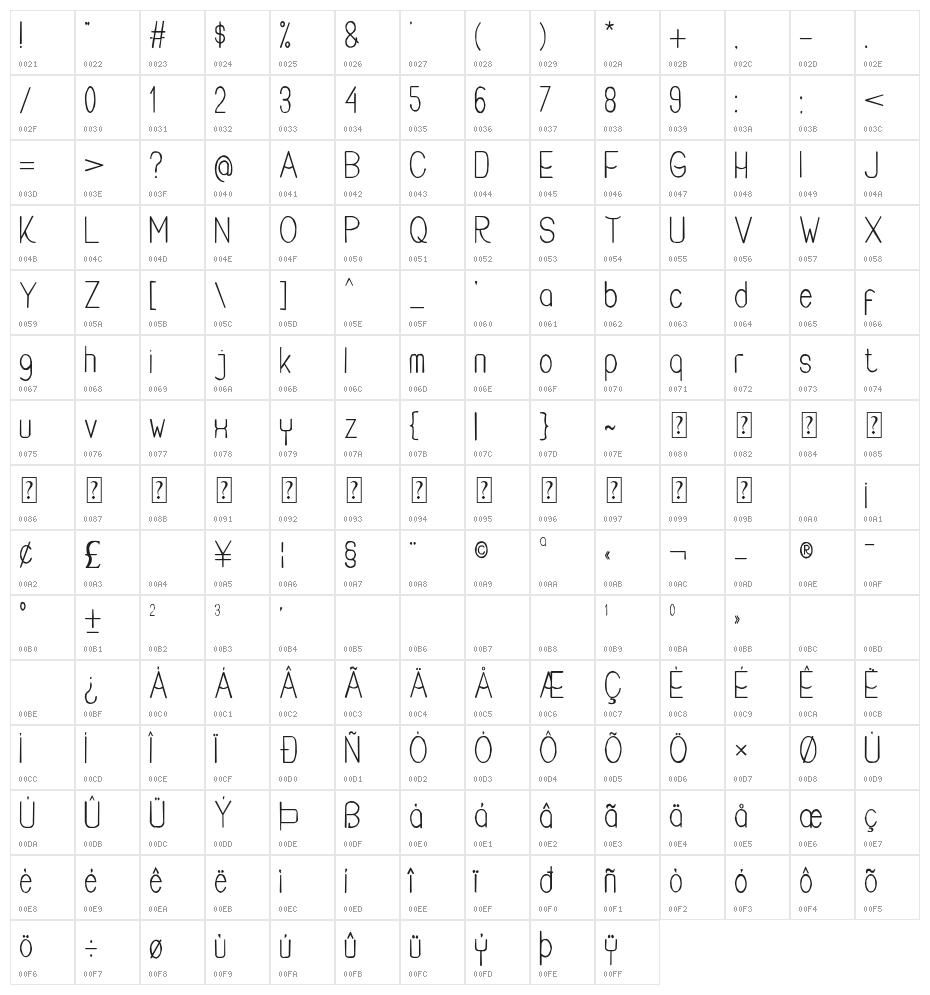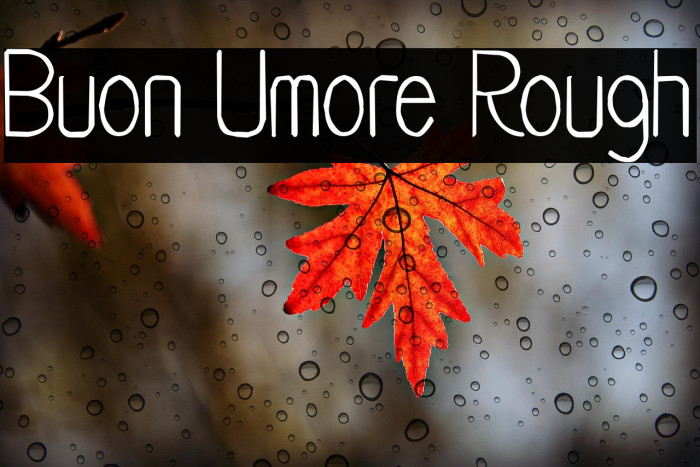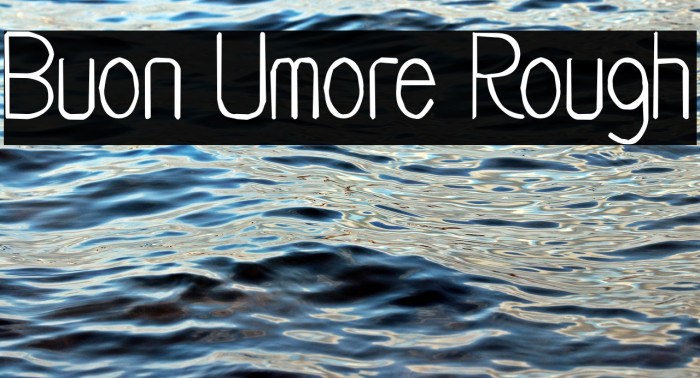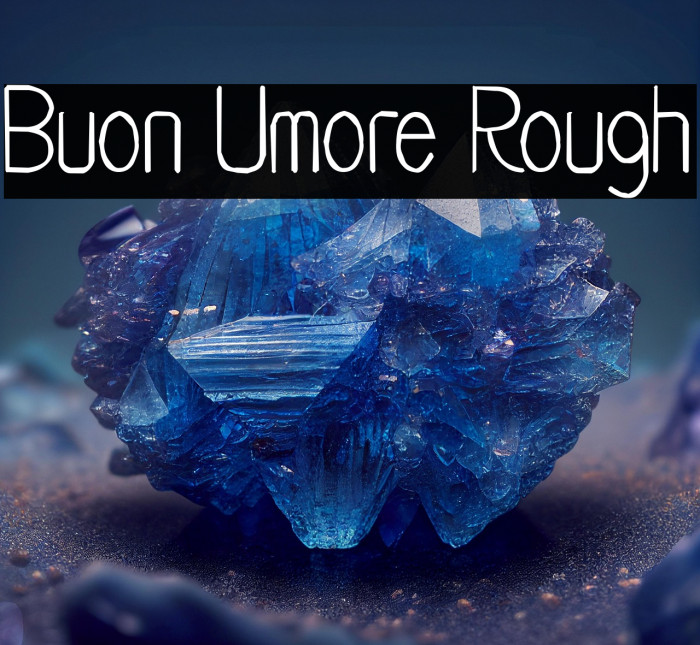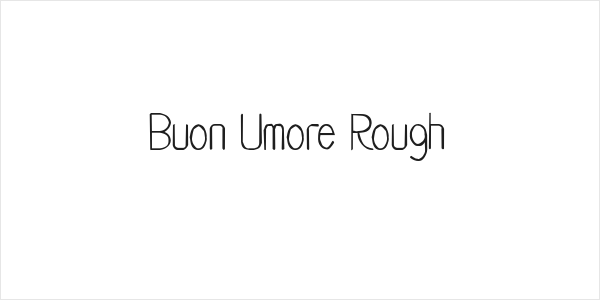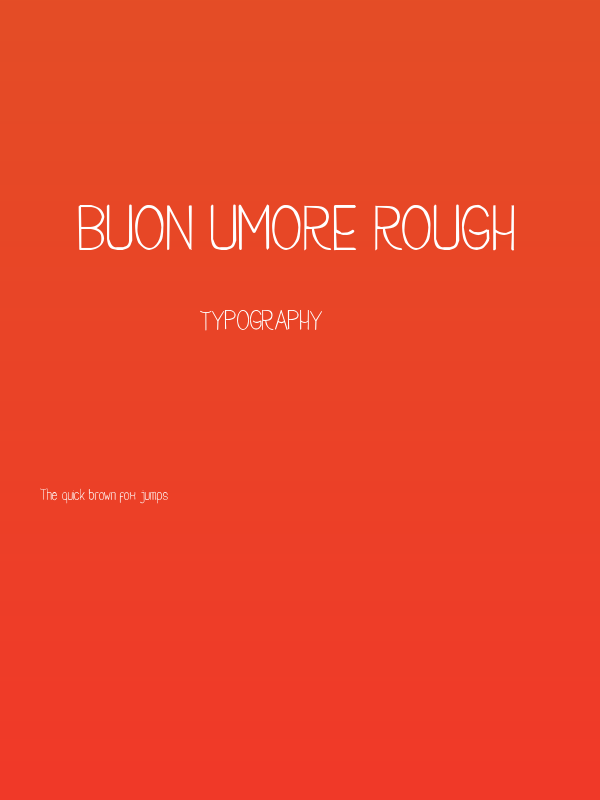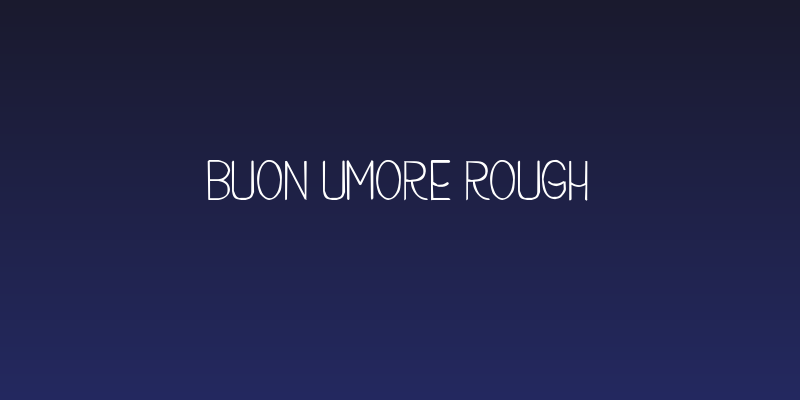
Buon Umore Rough Font
Buon Umore Rough Description
This font features a playful and slightly rough aesthetic, characterized by its hand-drawn appearance. The uppercase and lowercase letters maintain a consistent height, giving it a uniform look. The strokes are thin and slightly uneven, adding to its casual and informal style. The numbers and special characters follow the same design principles, ensuring a cohesive look across all glyphs. This font's unique charm lies in its imperfect lines and whimsical feel, making it stand out in creative projects.
| Proposed Projects | Ideal for children's books, creative posters, casual branding, and playful invitations. |